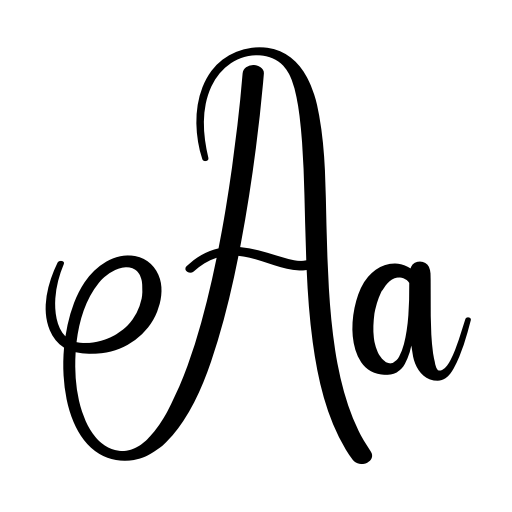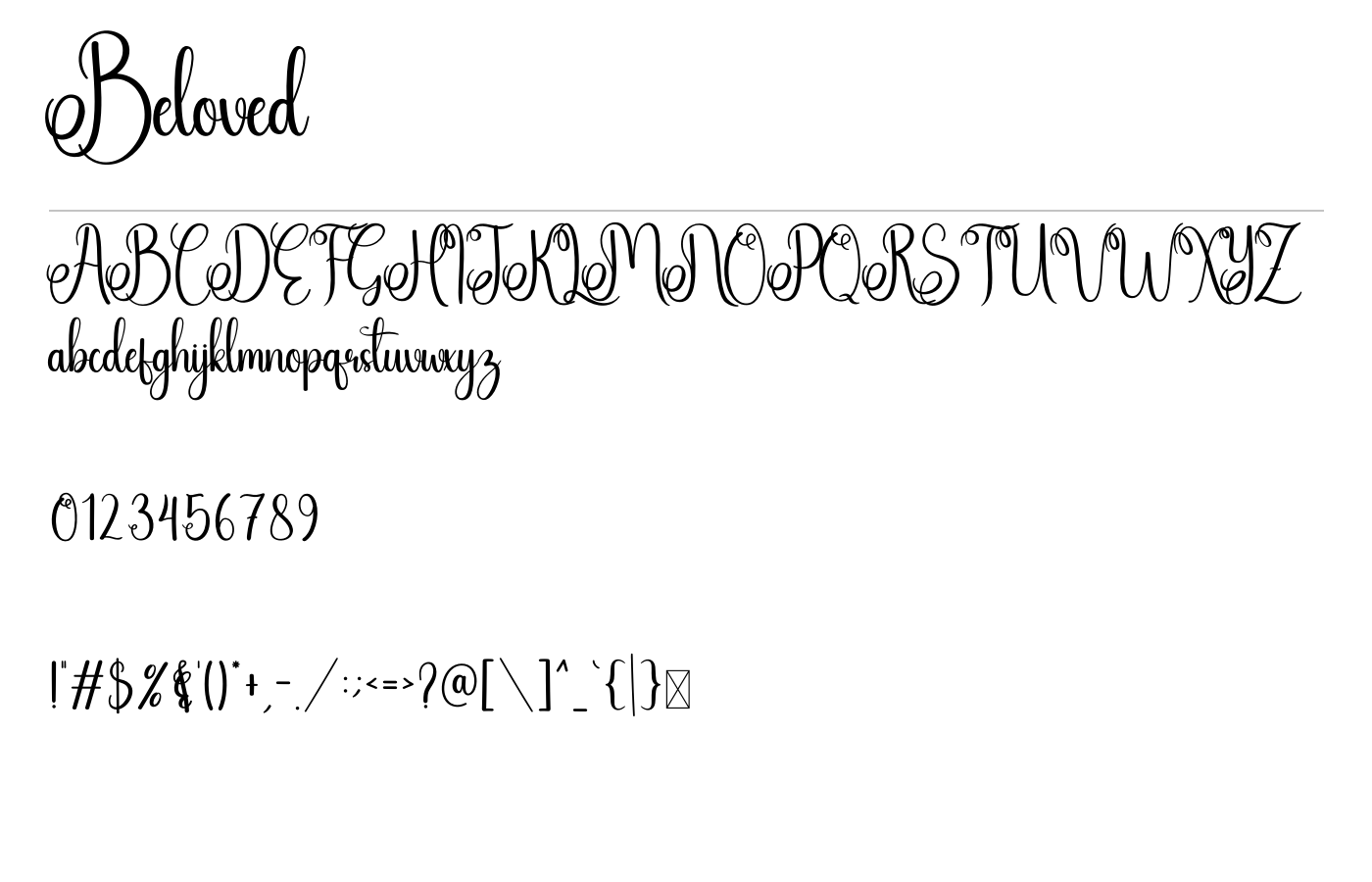
Beloved Font is an elegant, decorative script typeface with tall, slender letterforms and intricate swirls that add a whimsical, romantic charm. Its delicate, hand-drawn style works beautifully for wedding invitations, greeting cards, and fashion branding, conveying a sense of sophistication and personal touch. This font shines best in headlines or short display text where its unique flourishes can be fully appreciated.
Beloved Font